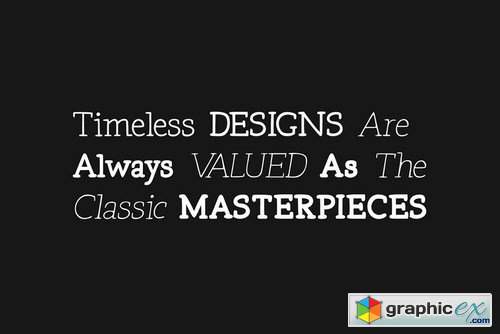
Tex Writer - Handmade Serif Typeface
Tex Writer is a custom handmade / handwritten Serif typeface with a simple and casual personality making it perfect for text typography, logotypes, marketing graphics, branding, package and advertisement design and anything in between.